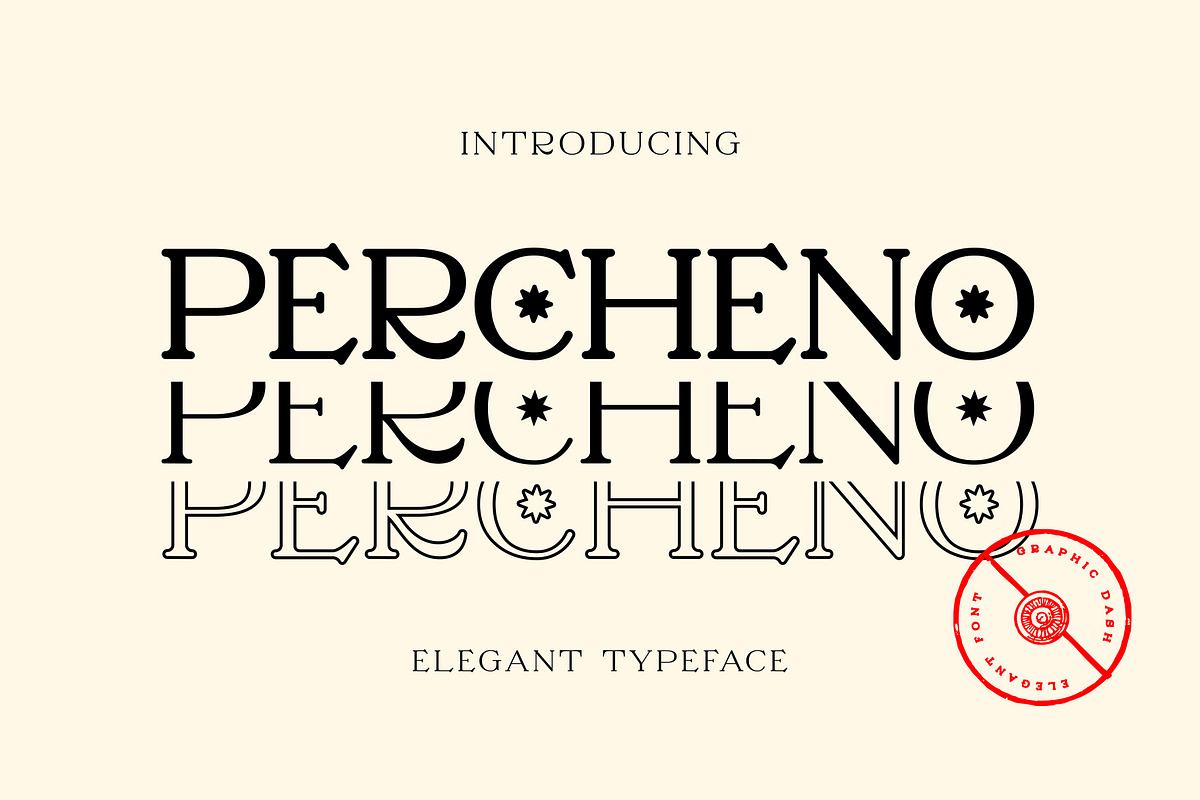
Percheno Elegant/Classy Font Free Download
Please note, to use this font for commercial purposes, you must purchase the full version. Percheno is an elegant and classy font designed to bring sophistication and refinement to any design. With its smooth, graceful letterforms, this font is perfect for high-end branding, invitations, logos, and luxury projects. Whether you're designing for a premium brand, a formal event, or a chic product, Percheno adds a timeless, professional touch to your work. Test it out and enjoy free download access for personal use. Experience the refined style of Percheno Elegant/Classy Font Free Download before purchasing the commercial license. Add a touch of elegance and class to your designs with Percheno.